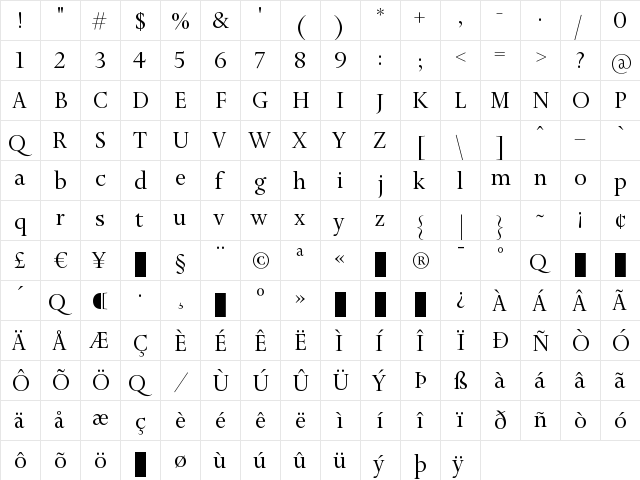
SterlingText Roman
| Foundry | The Hoefler Type Foundry, Inc |
Design Context for SterlingText Typeface
SterlingText offers clean, dependable letterforms without strong stylistic allegiance, making it a practical choice for designers who need flexibility.